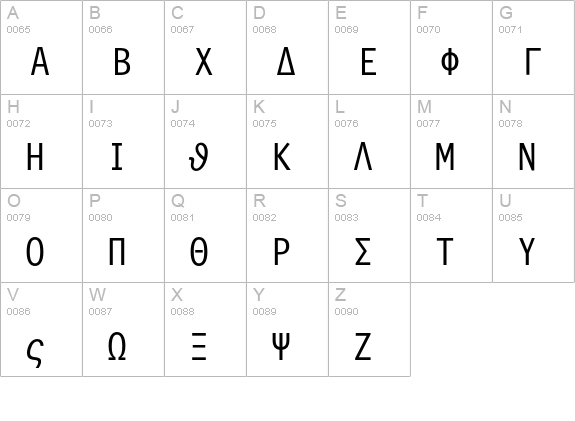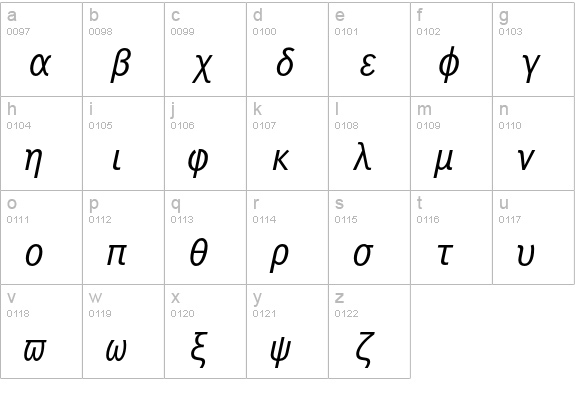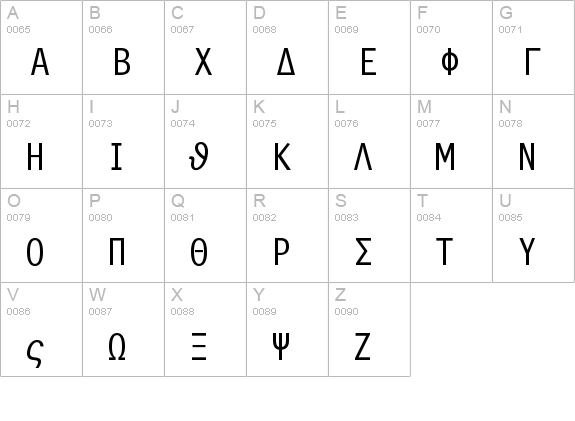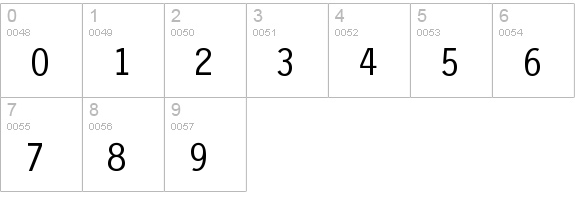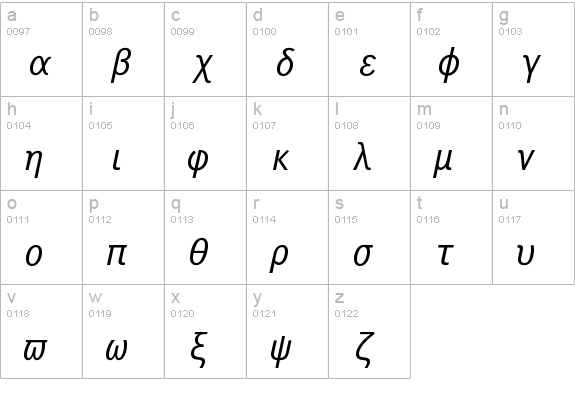
Symbol Monospaced Font Details
Symbol Monospaced is a modern and clean monospaced font designed for various uses such as coding, programming, and terminal applications. With its sleek and minimalistic design, Symbol Monospaced offers excellent readability and legibility, making it ideal for tasks that require precise alignment and consistency. This versatile font features a unique blend of simplicity and sophistication, making it suitable for a wide range of projects and applications. Whether you are working on a technical document, designing a website, or creating a program interface, Symbol Monospaced provides a professional and polished look. Best of all, Symbol Monospaced is available for free to download at FontsMarket.com, allowing you to access this high-quality font without any cost. Don't miss out on the opportunity to enhance your design projects with the sleek and modern style of Symbol Monospaced. Download it today and elevate your typography game to the next level.